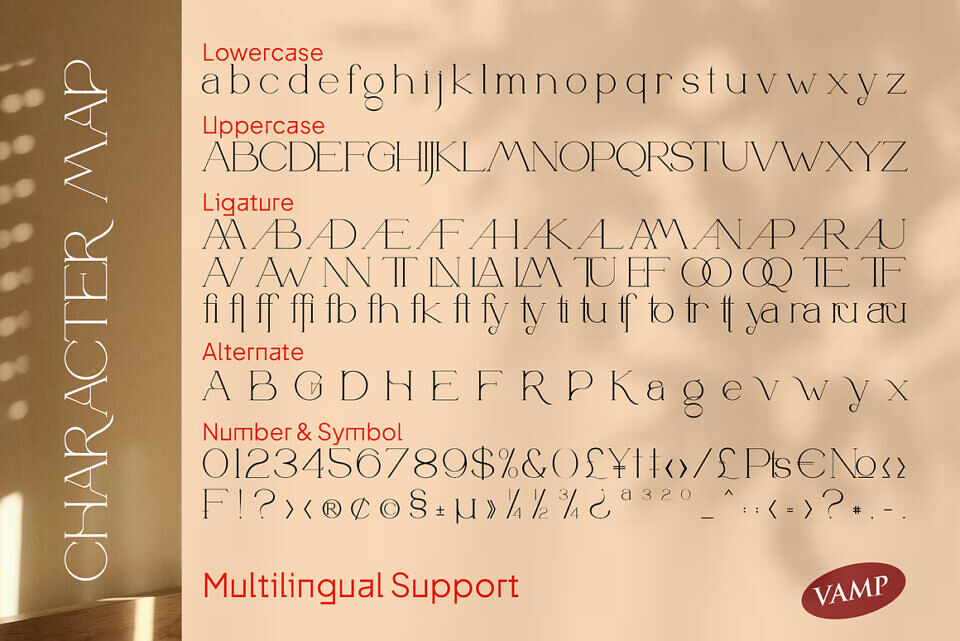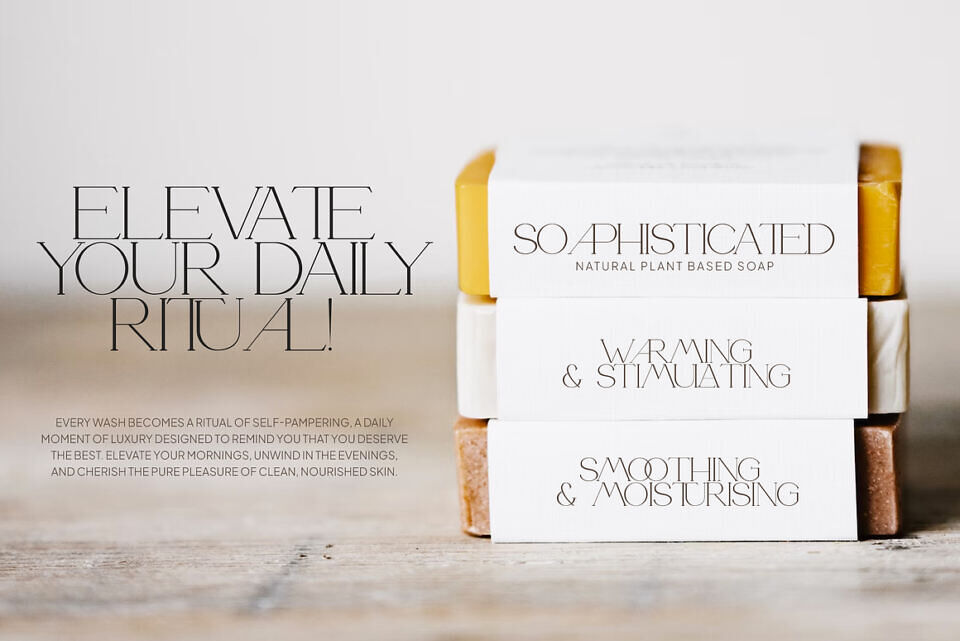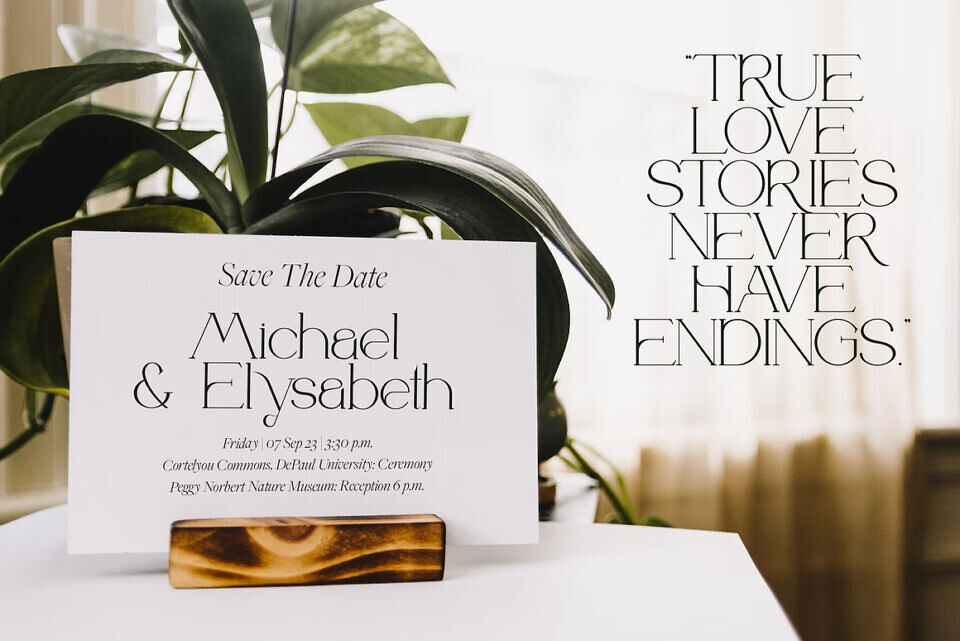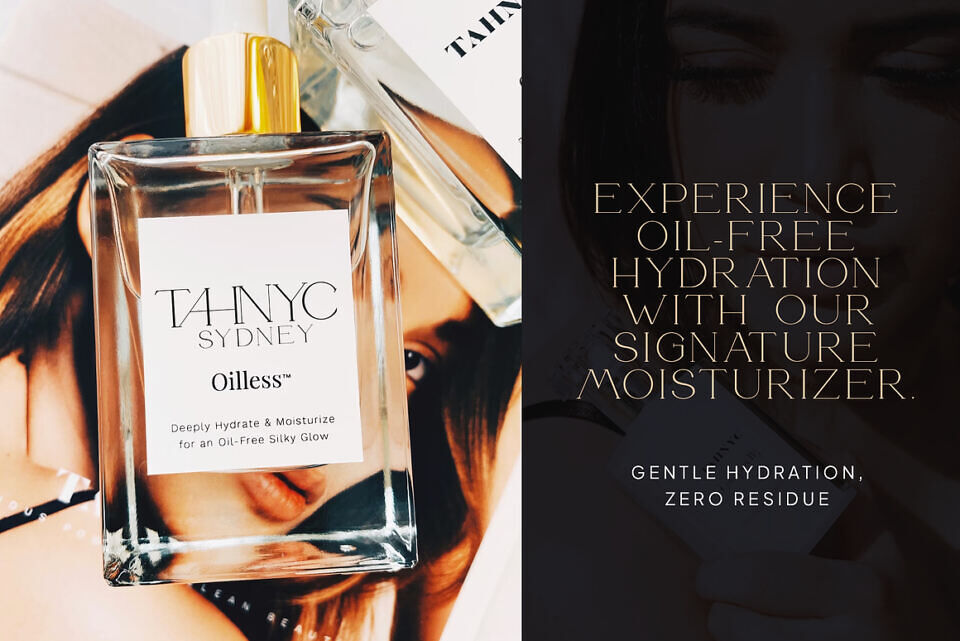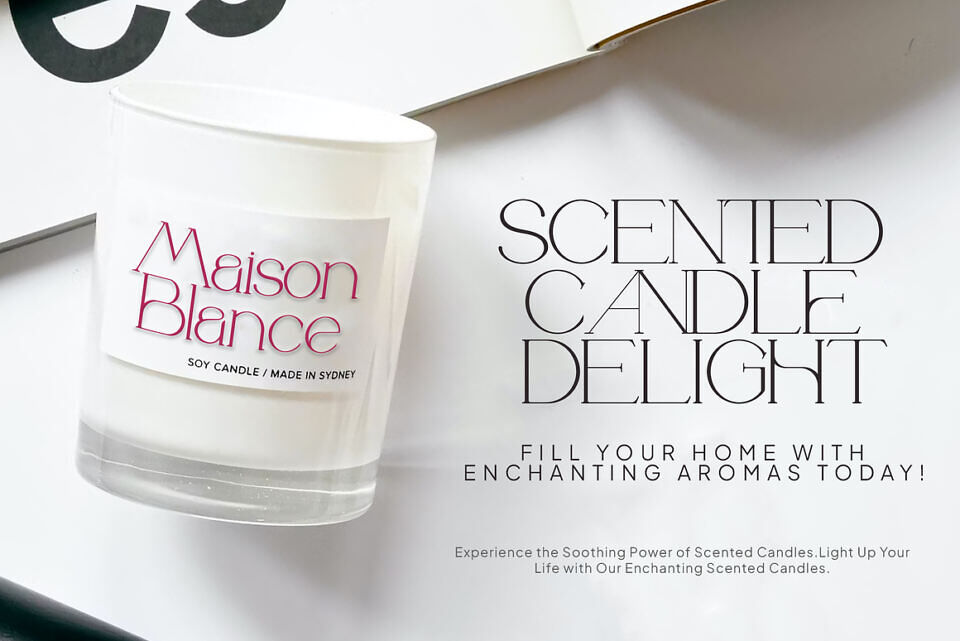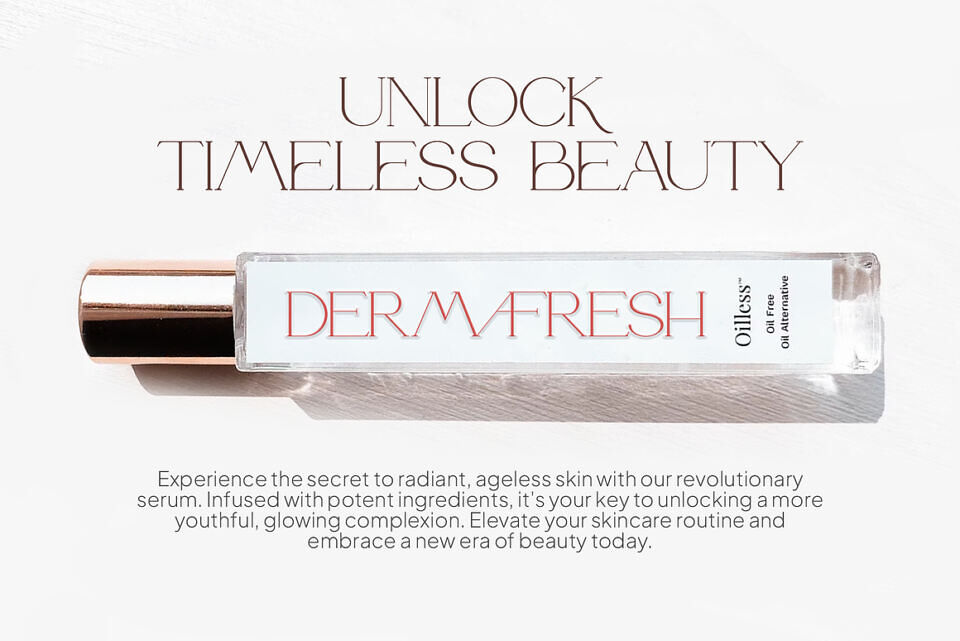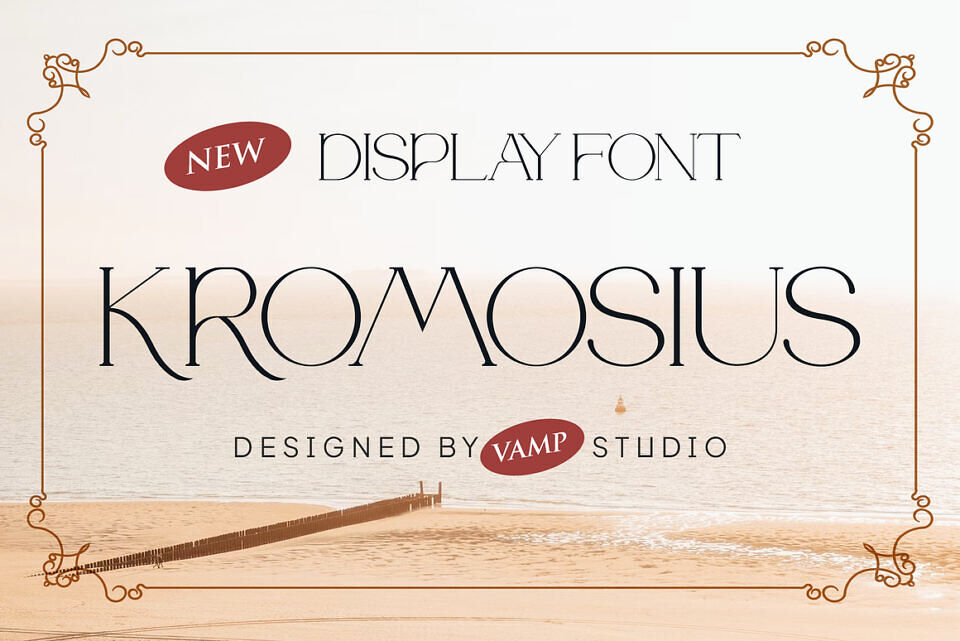
Kromosius Font
Kromosius is a modern and versatile display or serif typeface crafted with utmost precision. With its simplicity, cleanliness, and undeniable elegance, this font is the ultimate choice for your most ambitious projects.
Designed by skilled hands, Kromosius is meticulously crafted to meet the highest standards of quality. Its versatility makes it perfect for a wide range of applications, including branding projects, logos, wedding designs, social media posts, advertisements, product packaging, labels, photography, watermarks, invitations, stationery, and more. Whatever project requires a touch of refined handwriting, Kromosius delivers with its impeccable taste.